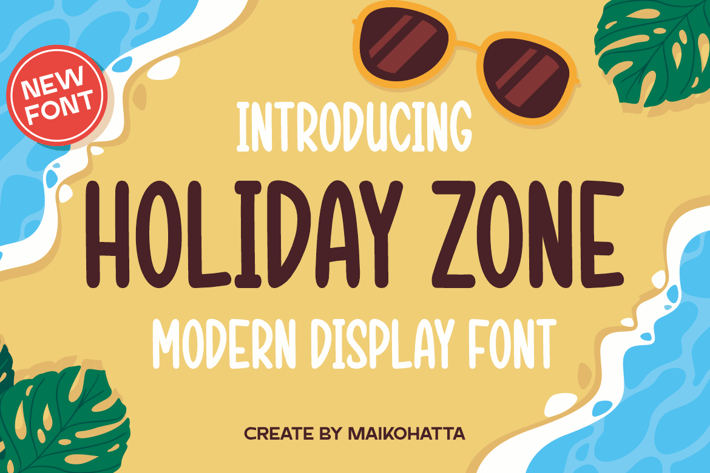
Holiday Zone - Modern Display Font
Introducing our new product Holiday Zone - Modern Display Font
This Fontsuitable for greeting cards, invitations, posters, baby clothing, books cover, quotes, logos, presentations, headline, etc.outstanding in a wide range of contexts.